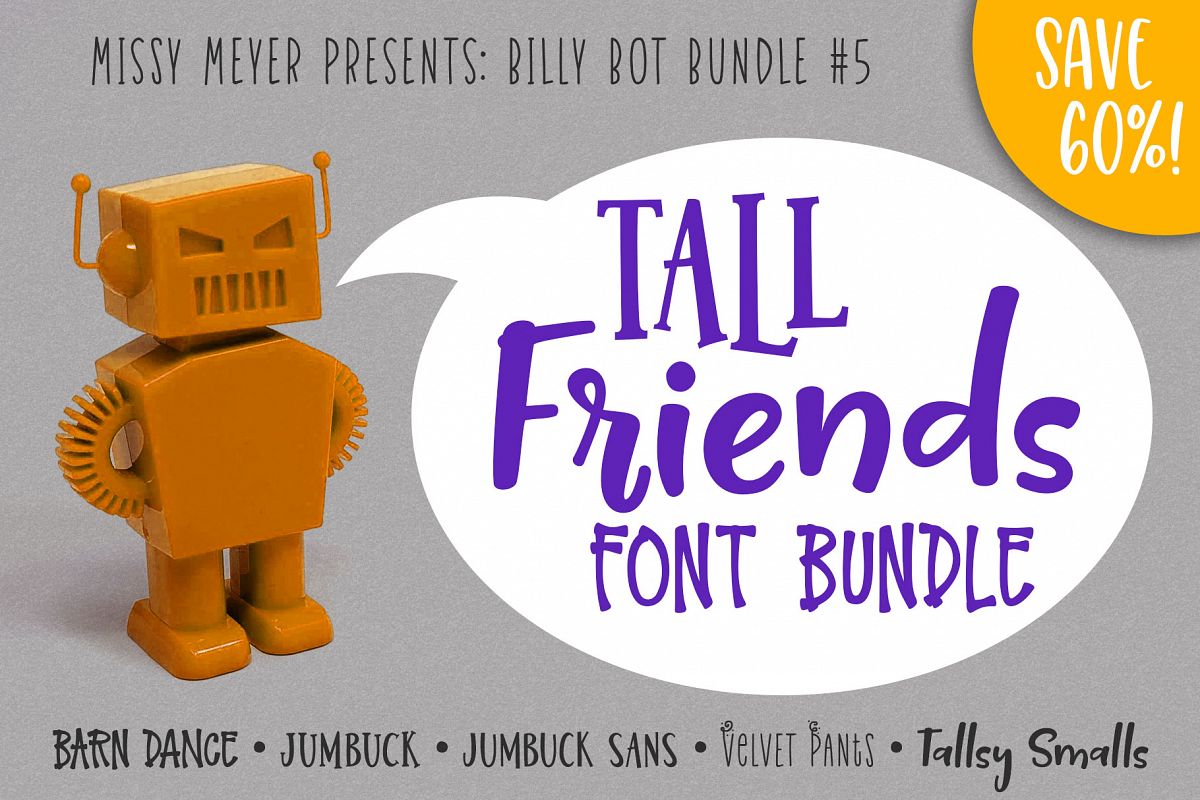
This is BBB #5, a set of tall and narrow fonts good for a thousand and one uses. Whether you're after something with a more farmhouse feel like Barn Dance, a party font like Velvet Pants, or the weird hybrid of a serif-script combo like Jumbuck, these will liven up any project.
The Tall Friends Font Bundle (Billy Bot Bundle #5) contains: